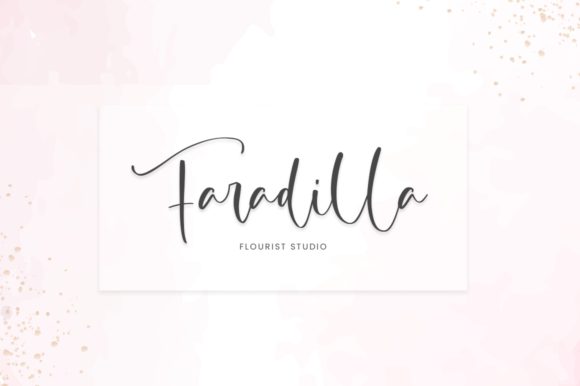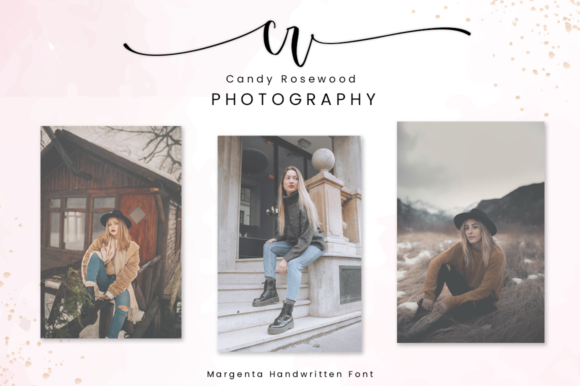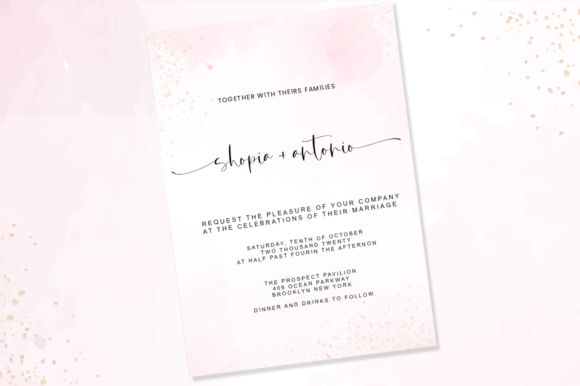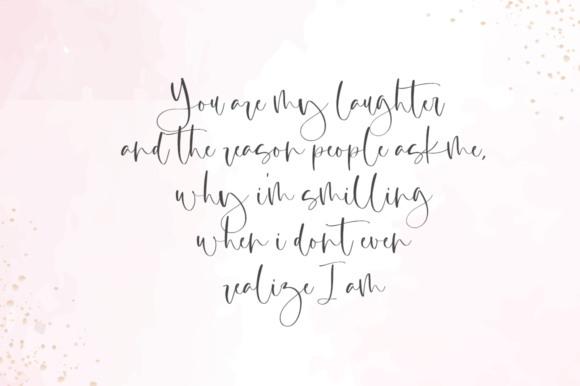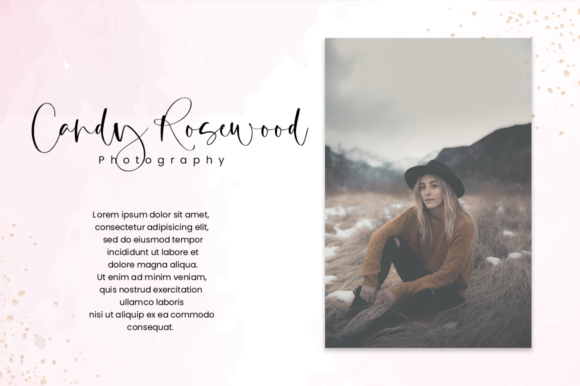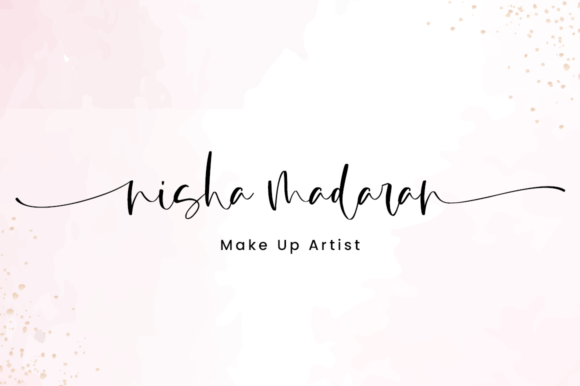
Introduction to Margenta Font
Margenta is a beautiful calligraphy font.
It is perfect for crafting, branding, invitations, stationery, wedding designs, social media posts, advertisements, special events or anything else that you wish to design .
Margenta Font offers exceptional quality and versatility, making it a valuable addition to your design toolkit. Whether you’re creating for personal projects or commercial use, Margenta Font delivers professional results.